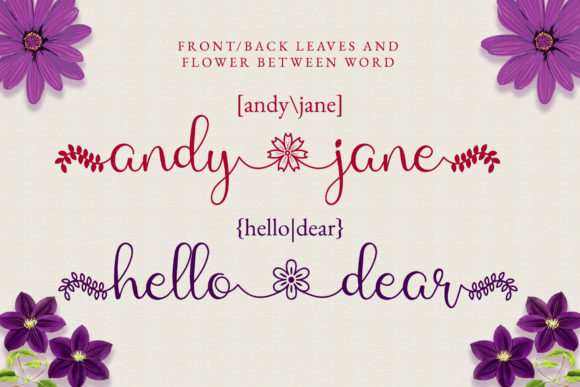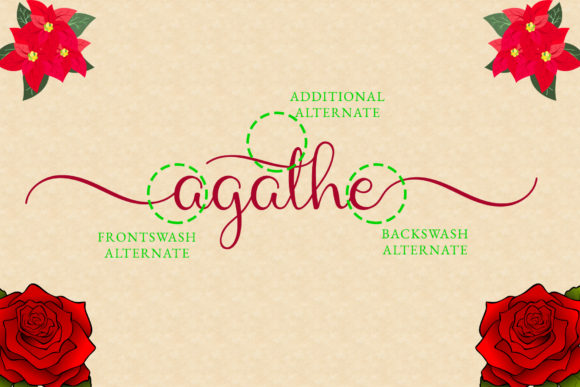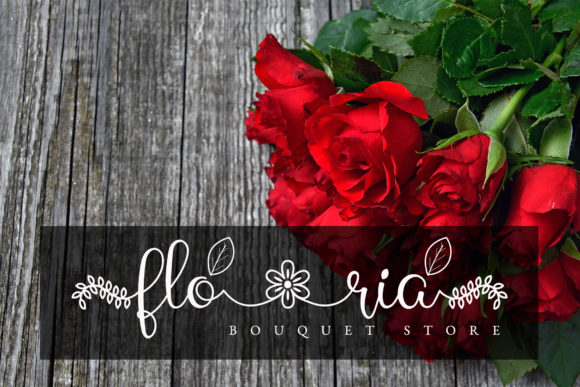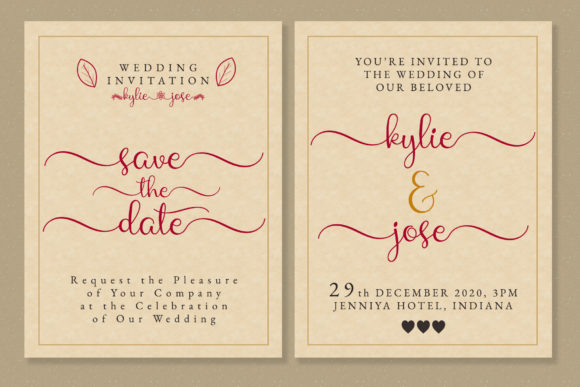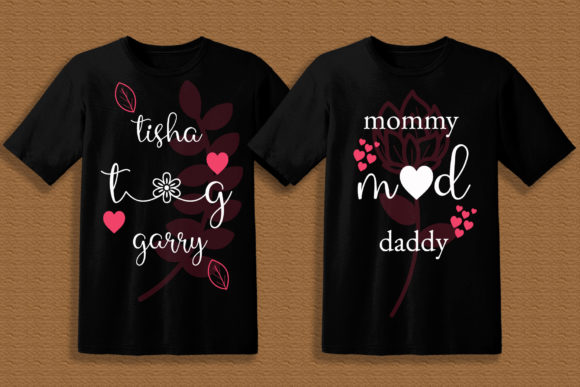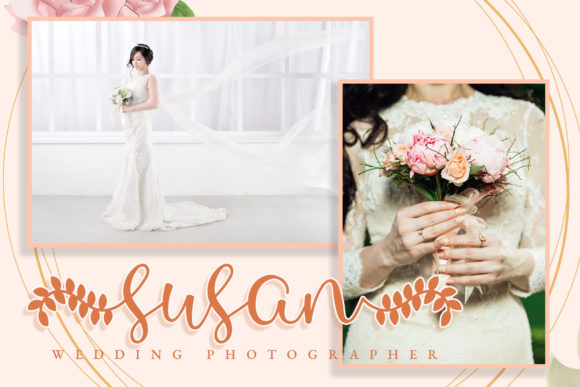
Introduction to Miss Githa Font
Have you ever stumbled upon the perfect font that makes your design project stand out? That moment of excitement when everything comes together, and your creative vision is brought to life? For designers, it’s a feeling we all cherish, and that’s exactly what the Miss Githa Font promises to deliver.
With its elegant touch and high-quality design, the Miss Githa Font is poised to become your go-to resource for any creative project. Whether you’re working on branding, headings, or wedding designs, this magical handwritten font is sure to elevate your work to the next level. And the best part? It’s available for free download, making it an accessible design resource for designers of all levels.
Key Features of Miss Githa Font
- High-quality design resource ideal for creative projects requiring a unique touch
- Comes with a transparent background, allowing for seamless integration into various design elements
- Features a clear and elegant design with a unique aesthetic, perfect for branding and identity projects
- Designed to be highly legible at various resolutions and sizes, making it suitable for a range of applications
Honest Review: Miss Githa Font
As a designer, I’m always on the lookout for high-quality design resources to elevate my creative projects. Recently, I stumbled upon the Miss Githa Font, and I’m excited to share my honest review with you.
What works well: ✨ The Miss Githa Font is a beautifully crafted font with a unique, elegant design. It’s perfect for projects that require a touch of sophistication and whimsy. The font is also incredibly versatile, making it suitable for a wide range of applications, from headings to body text.
- High-quality design with transparent background
- Perfect for creative projects requiring a unique touch
Any limitations: ⚠️ The font may not be suitable for projects that require a more modern or edgy feel. Additionally, the font’s elegance may make it more challenging to read in certain contexts, such as on low-resolution screens or in very small font sizes.
Overall, I’m impressed with the Miss Githa Font’s unique design and versatility. While it may have some limitations, it’s a great addition to any designer’s toolkit, especially for projects that require a touch of elegance and sophistication.
Miss Githa Font is a versatile, high-quality design resource ideal for various creative projects. Its unique design and transparent background make it a perfect addition to any visual content. To get the most out of this font, follow these steps:
To maximize the impact of Miss Githa Font, use it in bold, eye-catching combinations. Experiment with different font sizes, colors, and arrangements to create visually appealing designs.
Miss Githa Font is ideal for various creative projects, including:
- Blog post titles and headings
- Business card designs
- Infographics and presentations